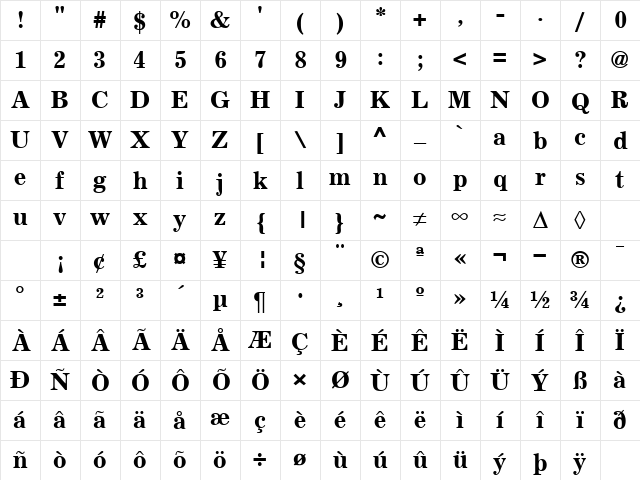
Exemplary Bold Free Font
Exemplary Bold
Design Context for Exemplary
Exemplary is a composed and adaptable typeface that performs quietly and consistently across a wide range of design contexts. Its bold stroke weight gives it real presence on the page.